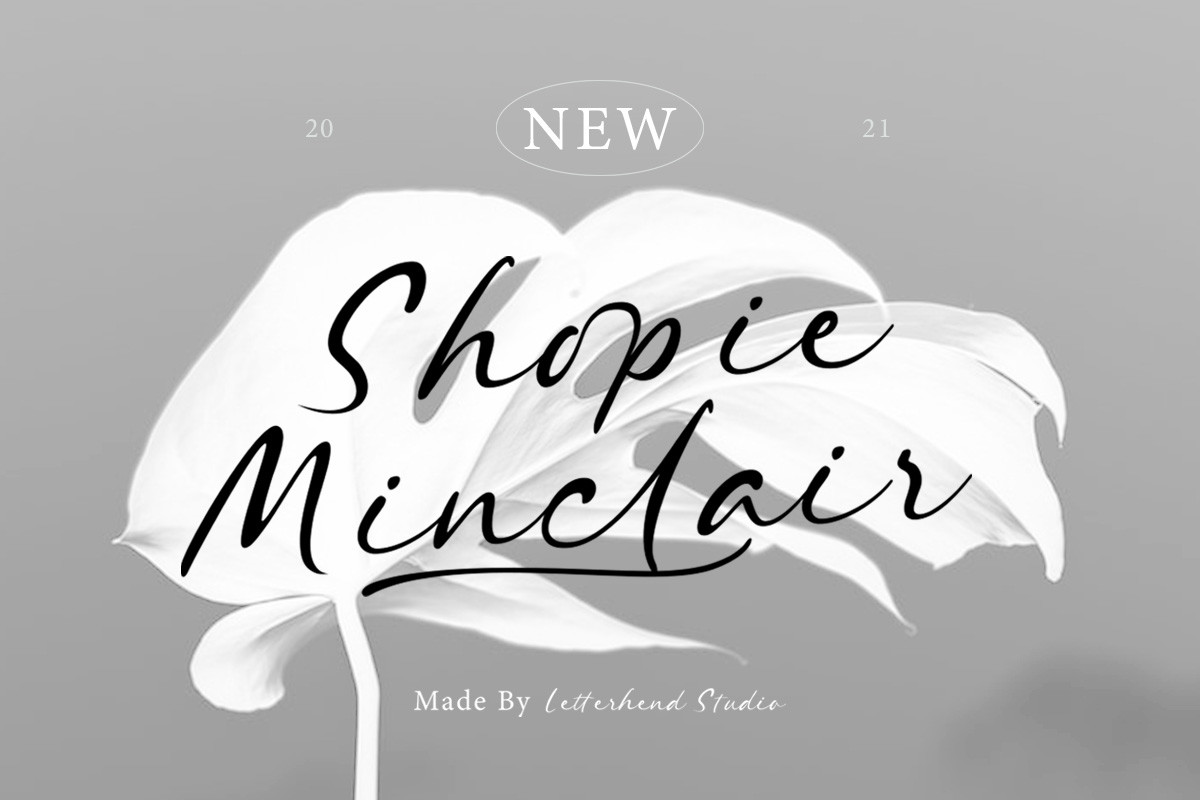
Shopie Minclair Font
Shopie Minclair Font is perfect for chic fashion boutique branding, trendy retail store signage, sophisticated e-commerce website headers, modern shopping mall directories, upscale department store campaigns, stylish fashion magazine layouts, contemporary lifestyle blog graphics, elegant product packaging design, fashionable social media content, and luxury shopping experience materials. This stylish typeface brings contemporary retail charm to fashion brand identities, shopping center marketing, trendy accessory packaging, modern beauty product labels, and sophisticated consumer lifestyle communications.
Shopie Minclair Font is exciting because it perfectly captures the essence of modern retail sophistication and contemporary shopping culture through its stylishly refined letterforms. The font features elegantly balanced characters with clean lines and fashion-forward proportions that evoke the polished atmosphere of upscale boutiques and contemporary retail environments. Its distinctive construction demonstrates commercial elegance with carefully crafted details that create an immediate sense of shopping sophistication and retail credibility. The font's fashionable appeal and commercial authenticity make it perfect for brands seeking to communicate retail excellence, shopping luxury, and contemporary consumer culture in their visual communications.
The Shopie Minclair Font family includes various retail-inspired styles: Light, Regular, Medium, Bold, Italic, Condensed, Extended, Display, Script, Boutique, Commercial, and Trendy variants. Each family member maintains the core retail DNA while offering different levels of commercial sophistication for diverse shopping-focused design applications. The comprehensive font collection ensures consistent retail branding across seasonal shopping campaigns, fashion product lines, and commercial marketing strategies.
Whether you're creating fashion retail brand identities, designing shopping marketing materials, developing e-commerce website headers, or crafting contemporary retail promotional campaigns, Shopie Minclair Font delivers outstanding commercial appeal and fashion sophistication. The font's distinctive retail personality excels in shopping logos, fashion packaging design, commercial applications, and retail projects where contemporary style and shopping elegance are essential.